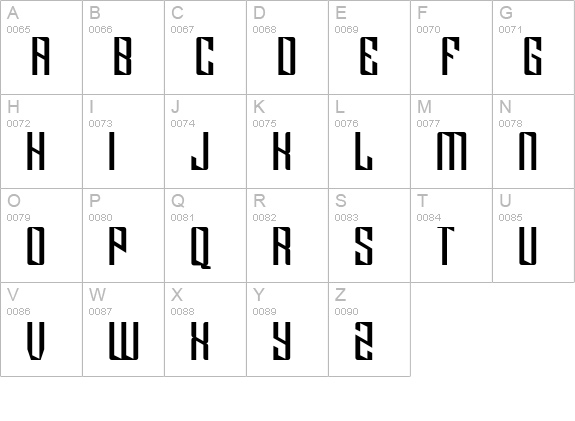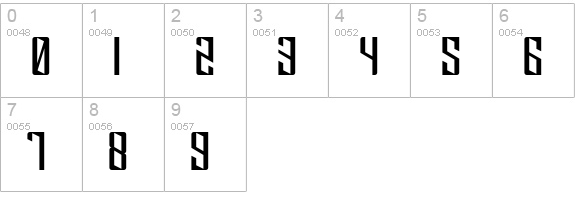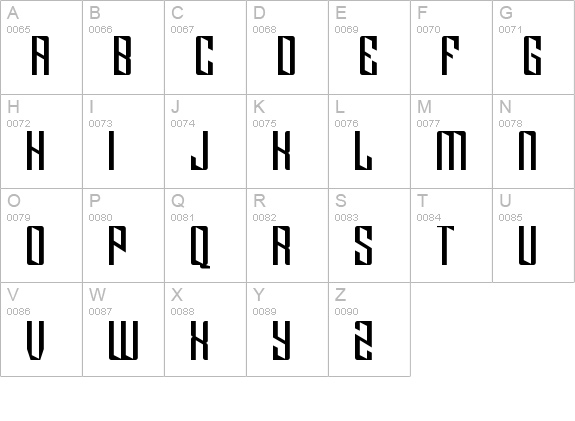
Klytus Font Details
Introducing Klytus font - a versatile and modern typeface that is sure to make your designs stand out! With its sleek lines and elegant curves, Klytus is perfect for a wide range of projects, from branding to social media graphics to editorial design. This font is designed with attention to detail, ensuring that each character is perfectly balanced and harmonious. Whether you're looking for a font that exudes sophistication or one that adds a touch of playfulness to your designs, Klytus has you covered. And the best part? Klytus is completely free to download at FontsMarket.com! So go ahead and give your projects a fresh new look with this fantastic font.